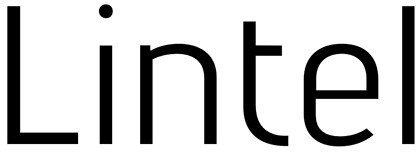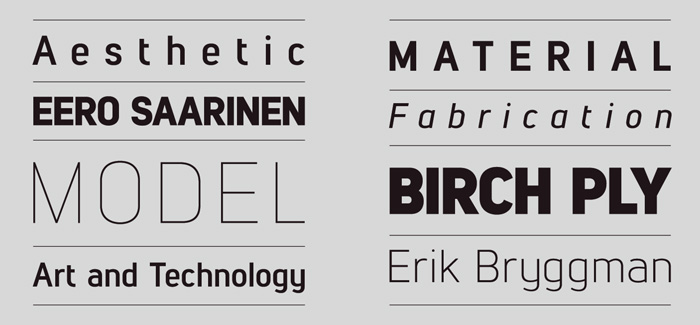
Lintel free font
Lintel free font is a modern san serif typeface with a fine clear line shape. The idea is a font with a proportioned and balanced structure to be designed, which is applicable for a wide variety of uses. Details include 8 weights with italics, 500 characters, Cyrillic lettering, 5 variations of numerals, manually edited kerning and Opentype features.